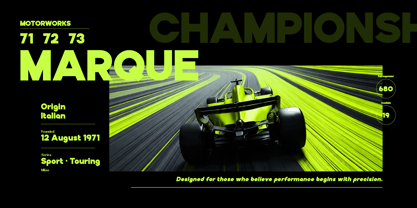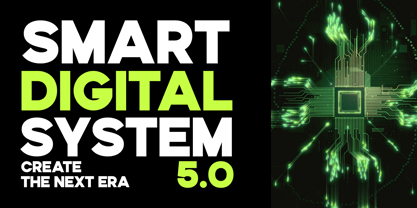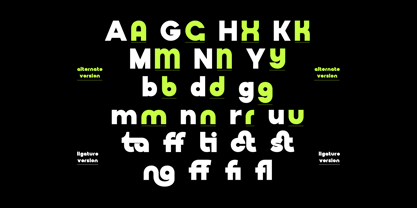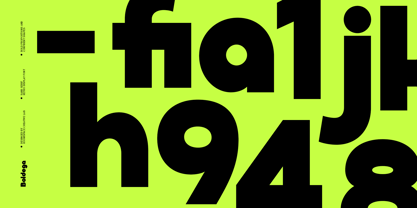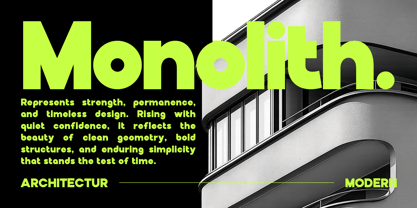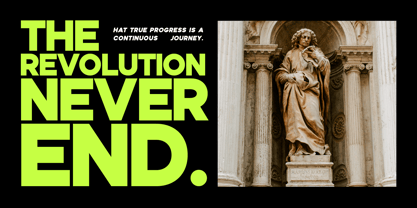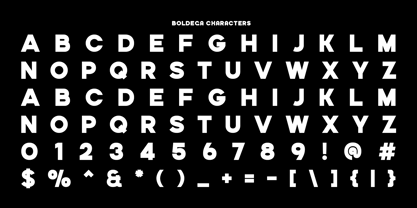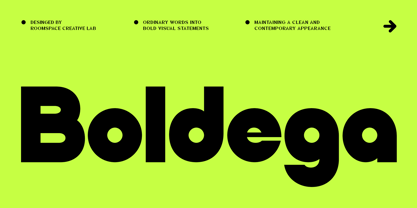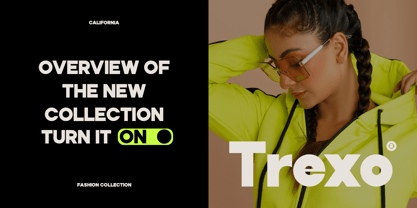
Boldega
La familia tipográfica Boldega fue diseñada por Bakhrudin Ja'far y publicada por Jafar07. Boldega contiene 2 estilos y opciones de paquete familiar. Más información sobre esta familia
Boldega is a bold geometric display typeface designed with heavy proportions, rounded geometric forms, and distinctive letter details. Its strong construction, clean shapes, and custom character variations create powerful headlines while maintaining a clean and contemporary appearance.
Designed primarily for display, Boldega is ideal for branding projects that require a bold, distinctive visual personality. Whether you're creating logos, posters, editorial layouts, fashion graphics, architecture presentations, motorsport graphics, technology visuals, packaging, advertising, or social media designs, this typeface delivers a strong visual presence without sacrificing clarity.
The family includes uppercase and lowercase characters, along with a collection of alternate characters and ligatures that allow you to create more customized and expressive typography compositions. These variations add flexibility for creating distinctive headlines, logos, and experimental display layouts.